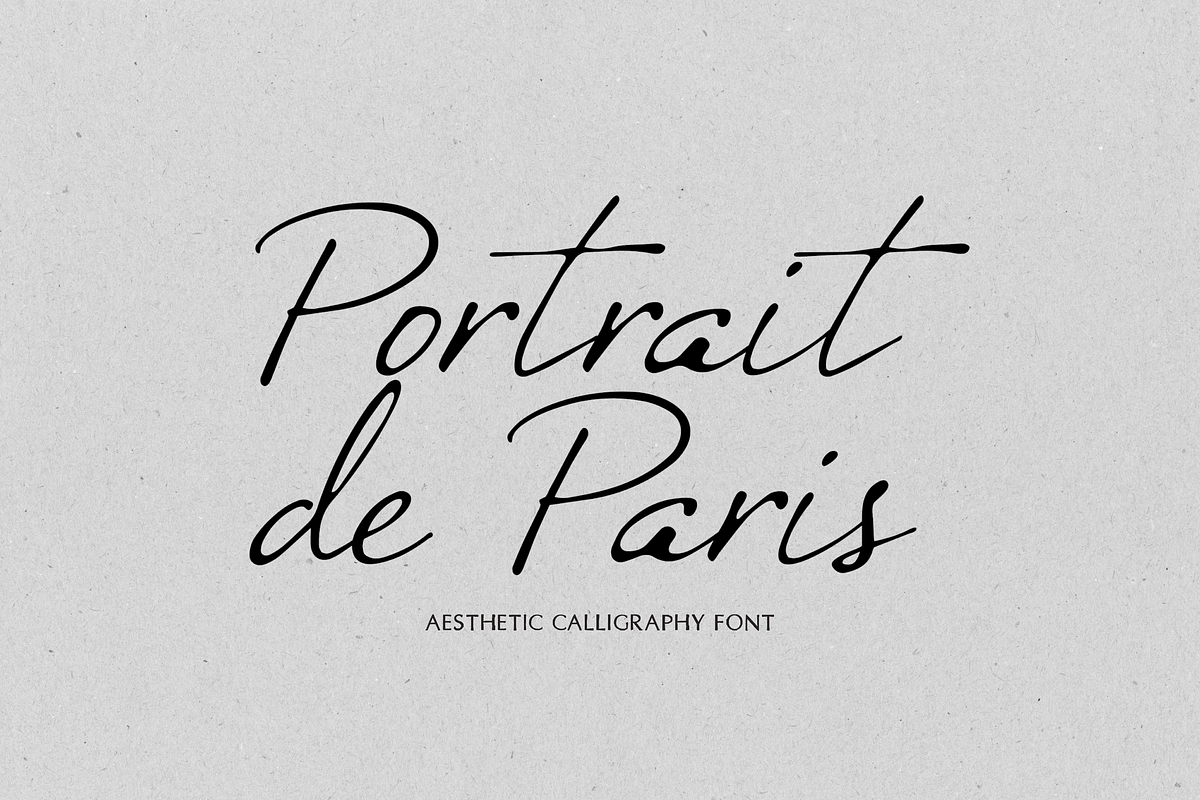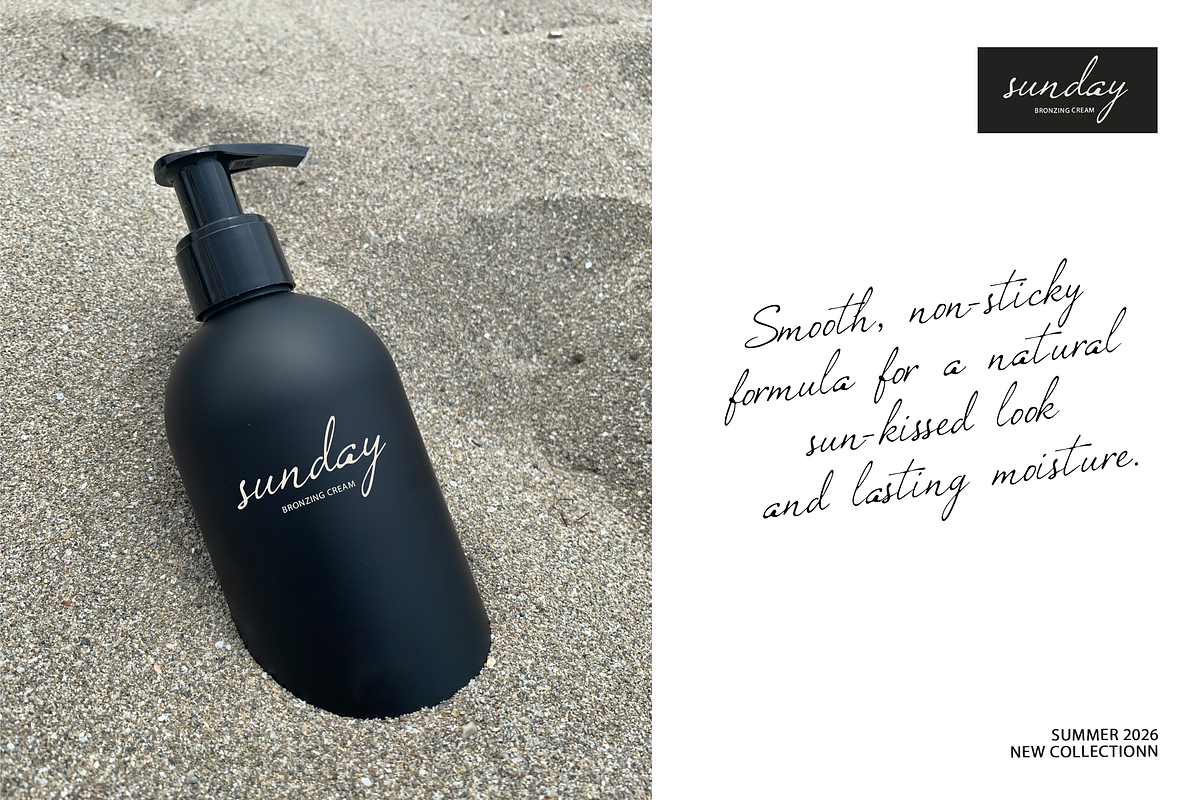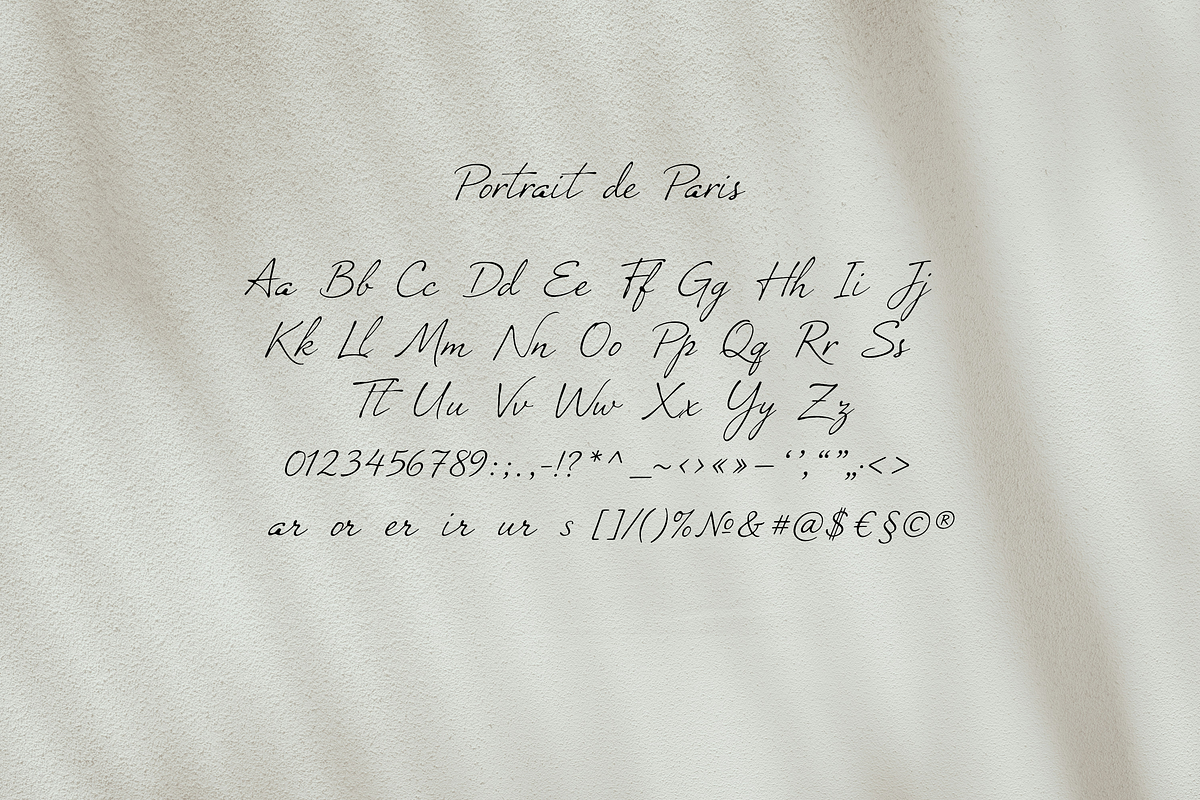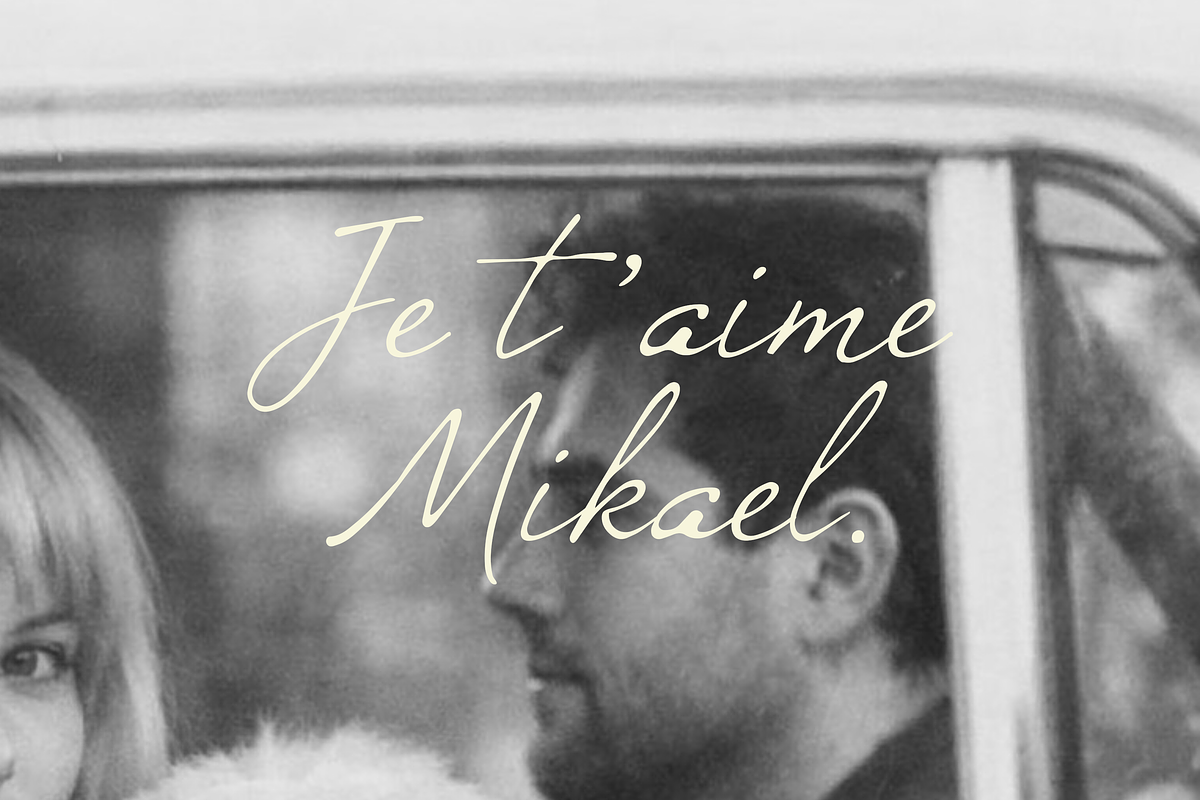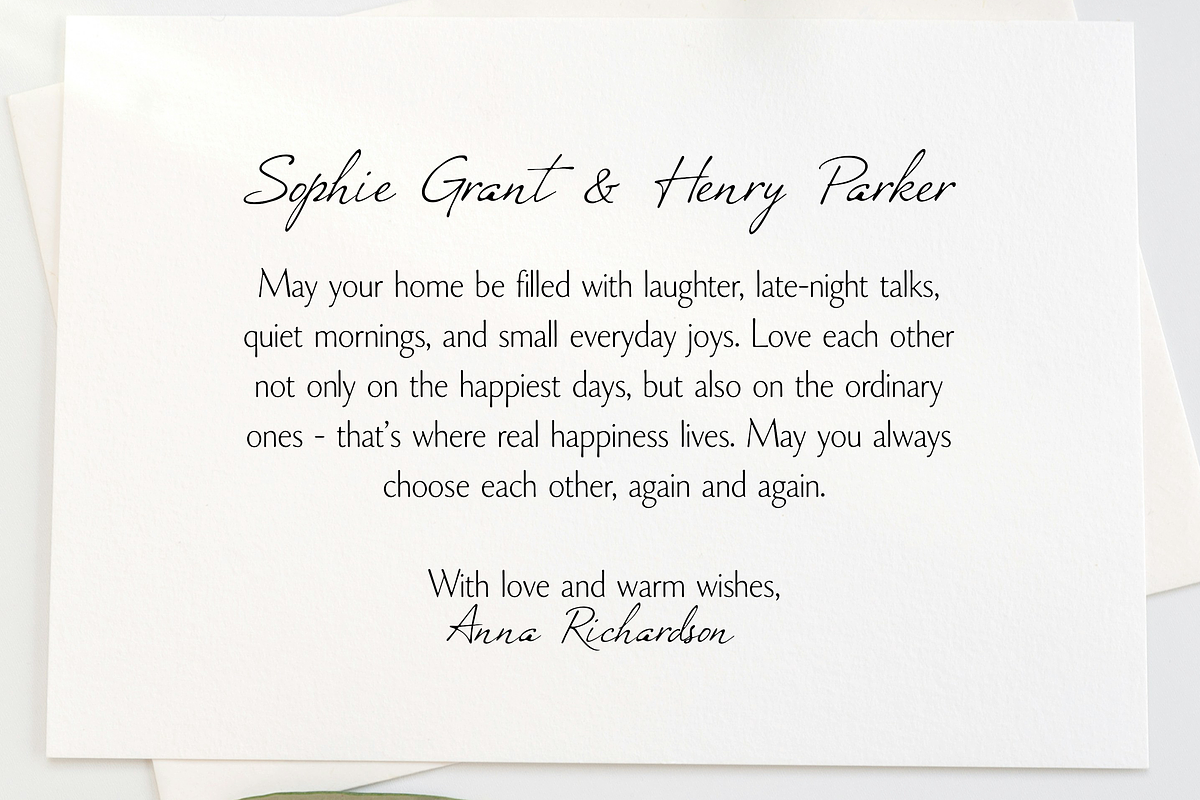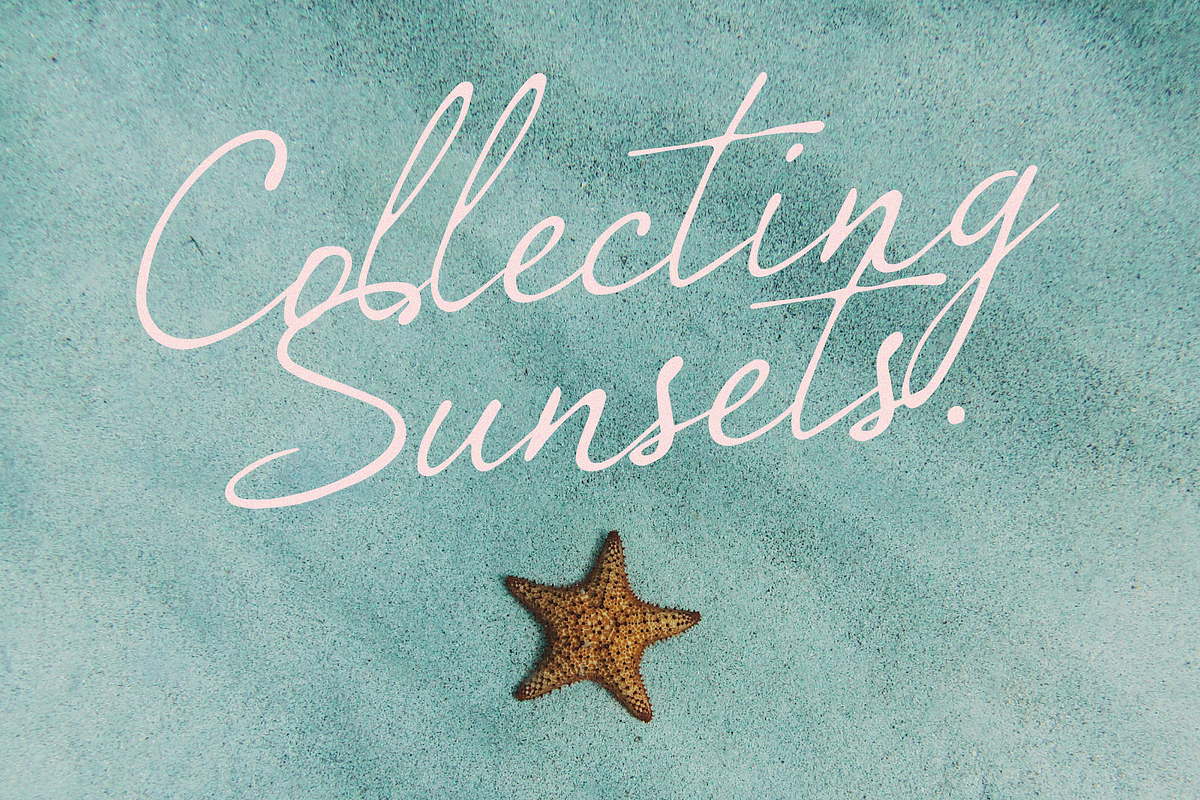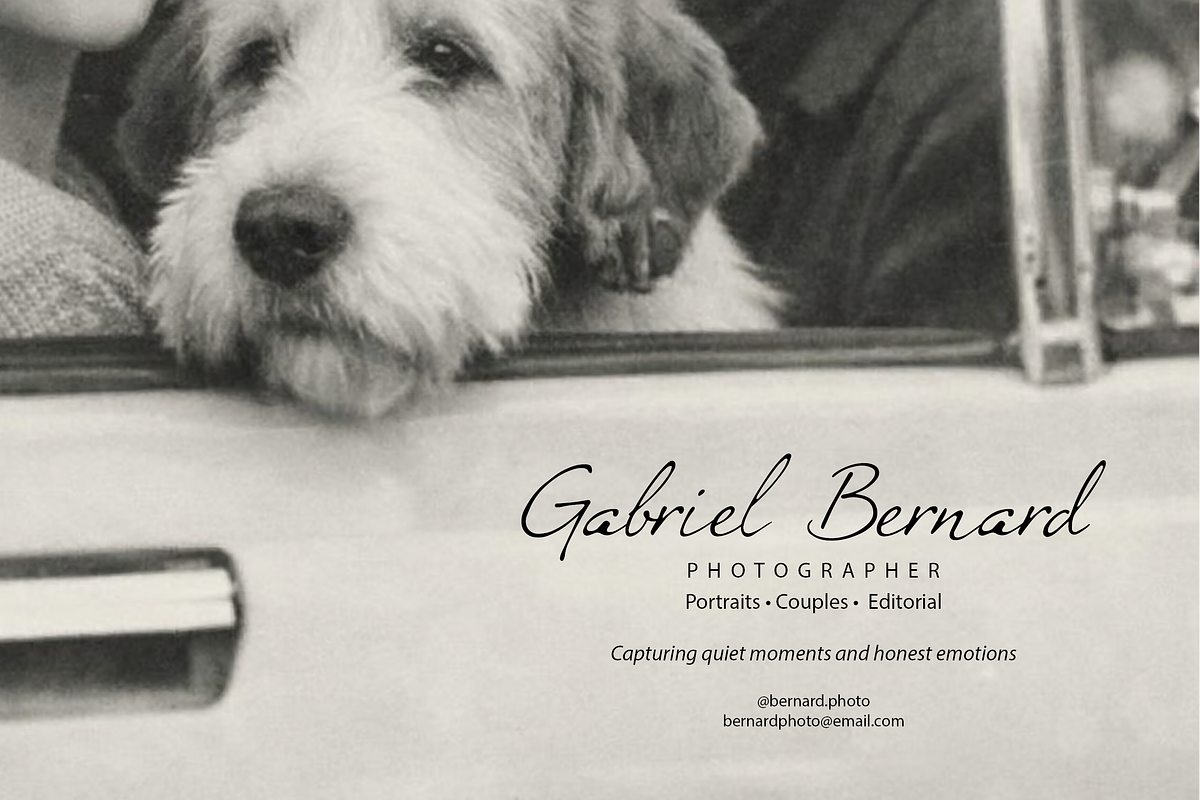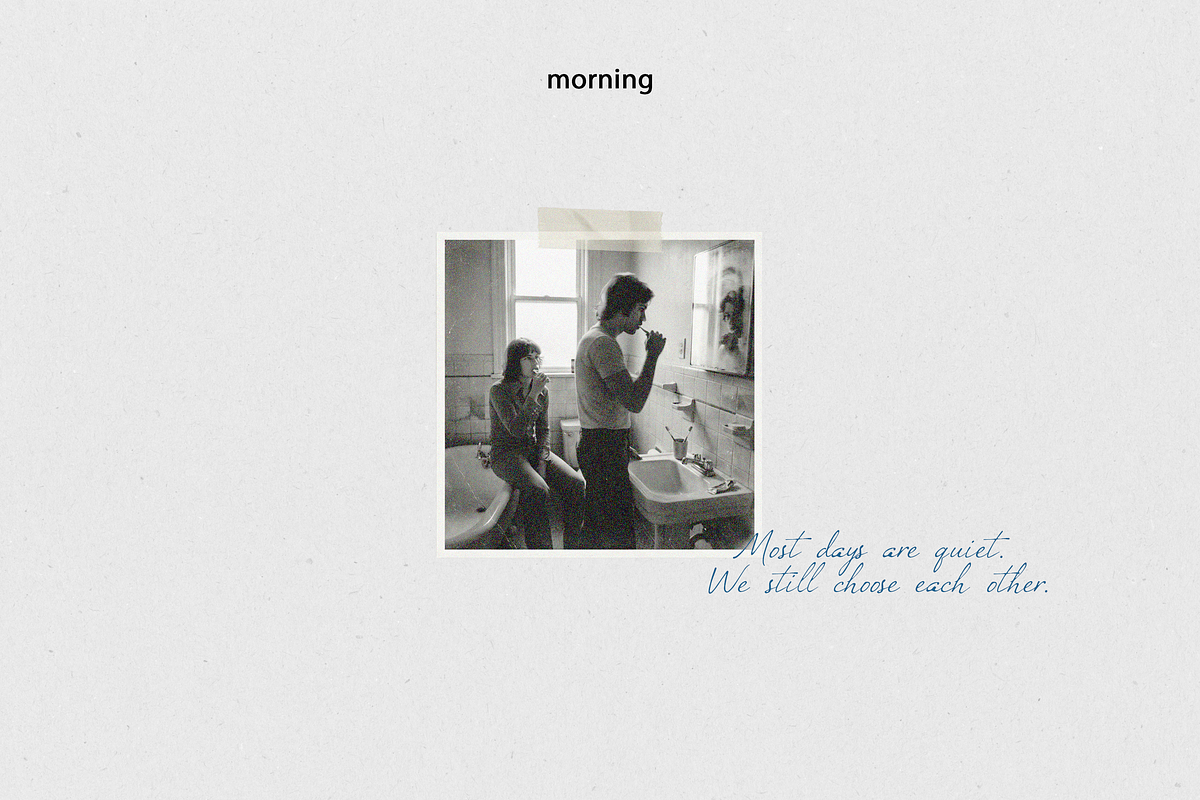
Portrait de Paris Signature Font
Portrait de Paris is an elegant signature-style script with a romantic, Parisian feel. Smooth strokes and refined contrast make it perfect for wedding stationery, branding, logos, photography watermarks, packaging, social media graphics, and quotes.